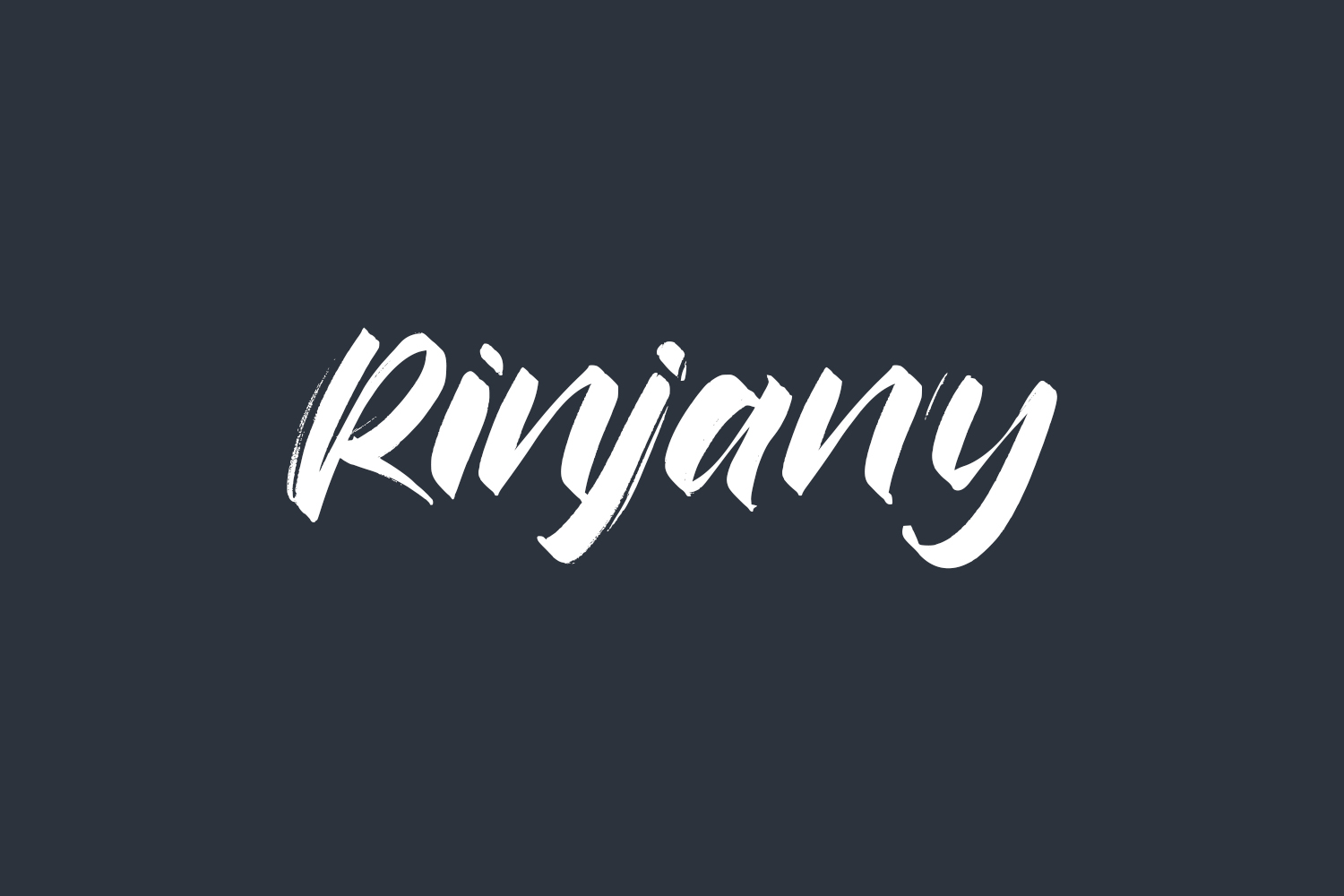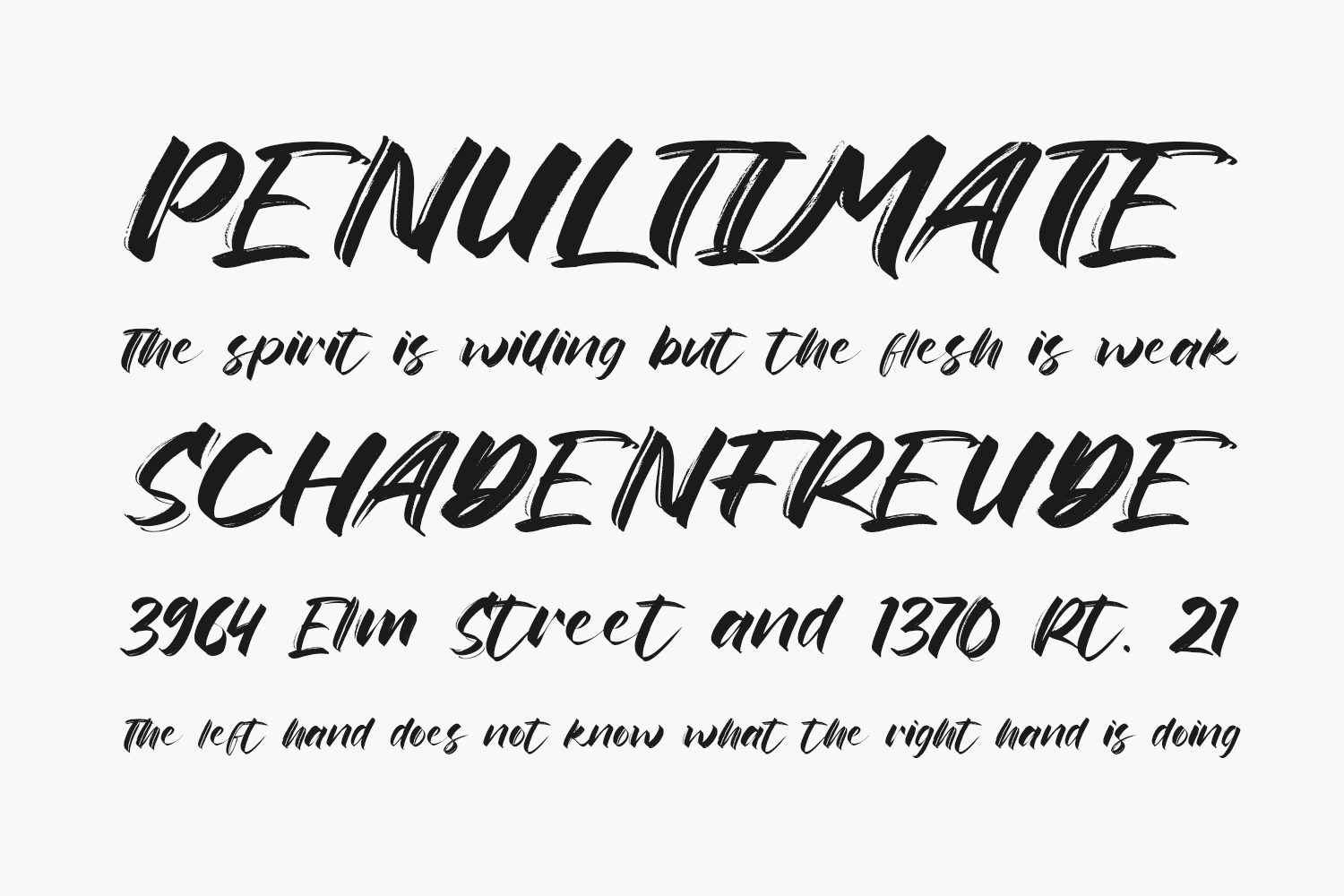
Rinjany Free Font is a textured hand brush handwritten font. Get inspired by its unique and beautiful style and add it to your favorite designs. Rinjany Free Font was designed by StringLabs and is free for personal use only. Please purchase the full version for commercial use.